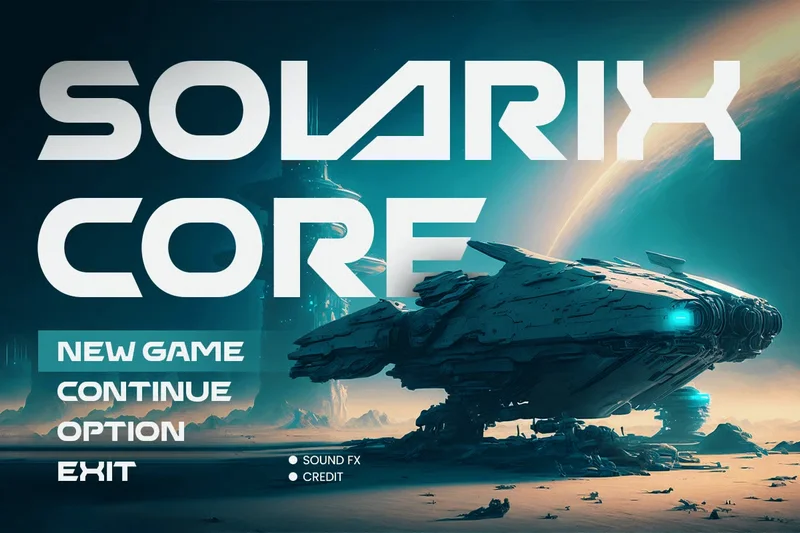
Lazzer – Futuristic Sci-Fi Font
LAZZER is a futuristic sci-fi font that combines modern aesthetics with a forward-thinking design. With its sleek, bold letterforms, LAZZER is perfect for creating high-tech branding, digital art, and sci-fi inspired visuals. The font is ideal for everything from logos and branding to digital artwork and gaming titles.
Its dynamic structure gives each letter a sense of motion, making it perfect for cutting-edge designs that need to stand out. Whether you’re working on futuristic branding or creating digital art, LAZZER offers a bold, innovative typographic solution for your project.
LAZZER – Futuristic Sci-Fi Font Features
Sleek, bold letterforms with a futuristic look
Ideal for high-tech branding, sci-fi designs, and digital art
Ready with 3 Weights to make it easy to create unique projects
Includes uppercase, lowercase, numerals, and punctuation
Modern, creative design with advanced typographic elements
OpenType features for enhanced design flexibility
Multilingual support for Afrikaans, Albanian, Asu, Basque, Bemba, Bena, Breton, Chiga, Cornish, Dutch, English, Estonian, Filipino, Finnish, Friulian, Galician, German, Gusii, Indonesian, Irish, Italian, Kabuverdianu, Kalenjin, Kinyarwanda, Luo, Luxembourgish, Luyia, Machame, Makhuwa-Meetto, Makonde, Malagasy, Manx, Morisyen, North Ndebele, Nyankole, Oromo, Portuguese, Quechua, Romansh, Rombo, Rundi, Rwa, Samburu, Sango, Sangu, Scottish Gaelic, Sena, Shambala, Shona, Soga, Somali, Spanish, Swahili, Swedish, Swiss, and more.